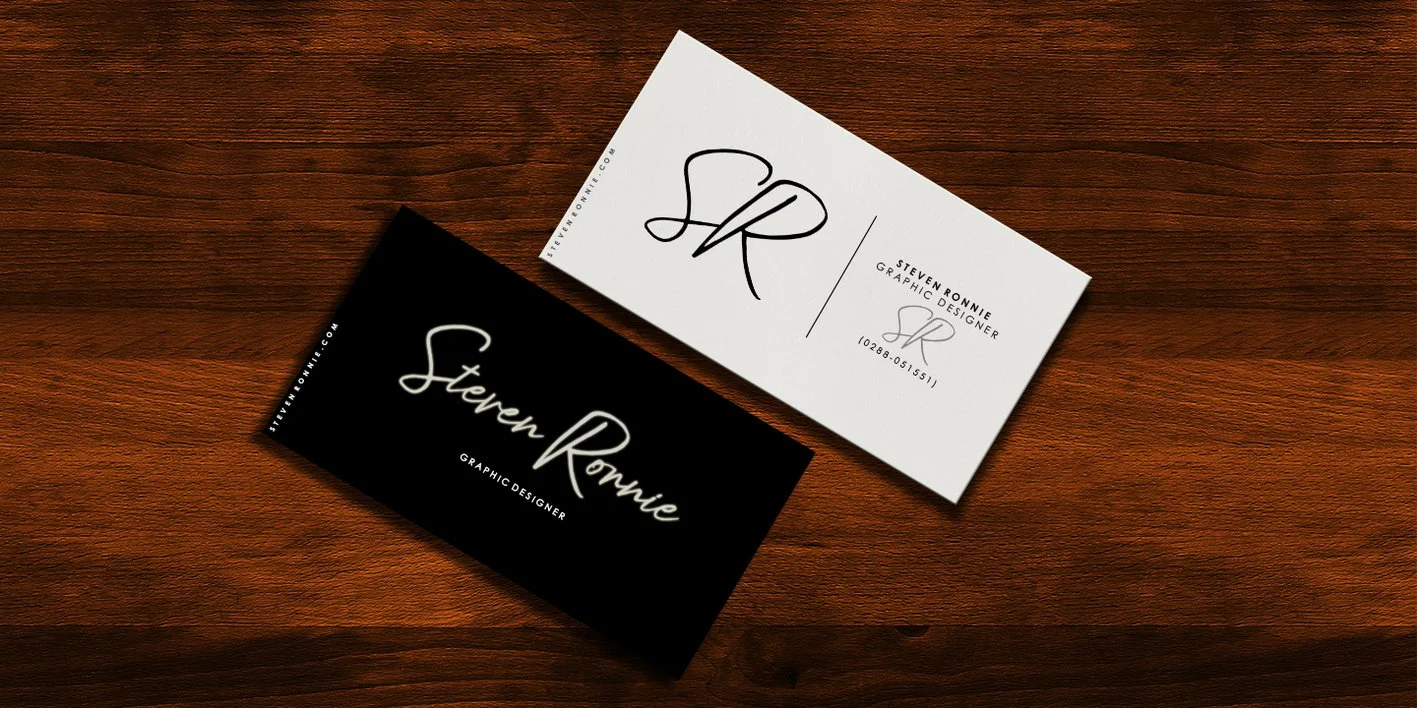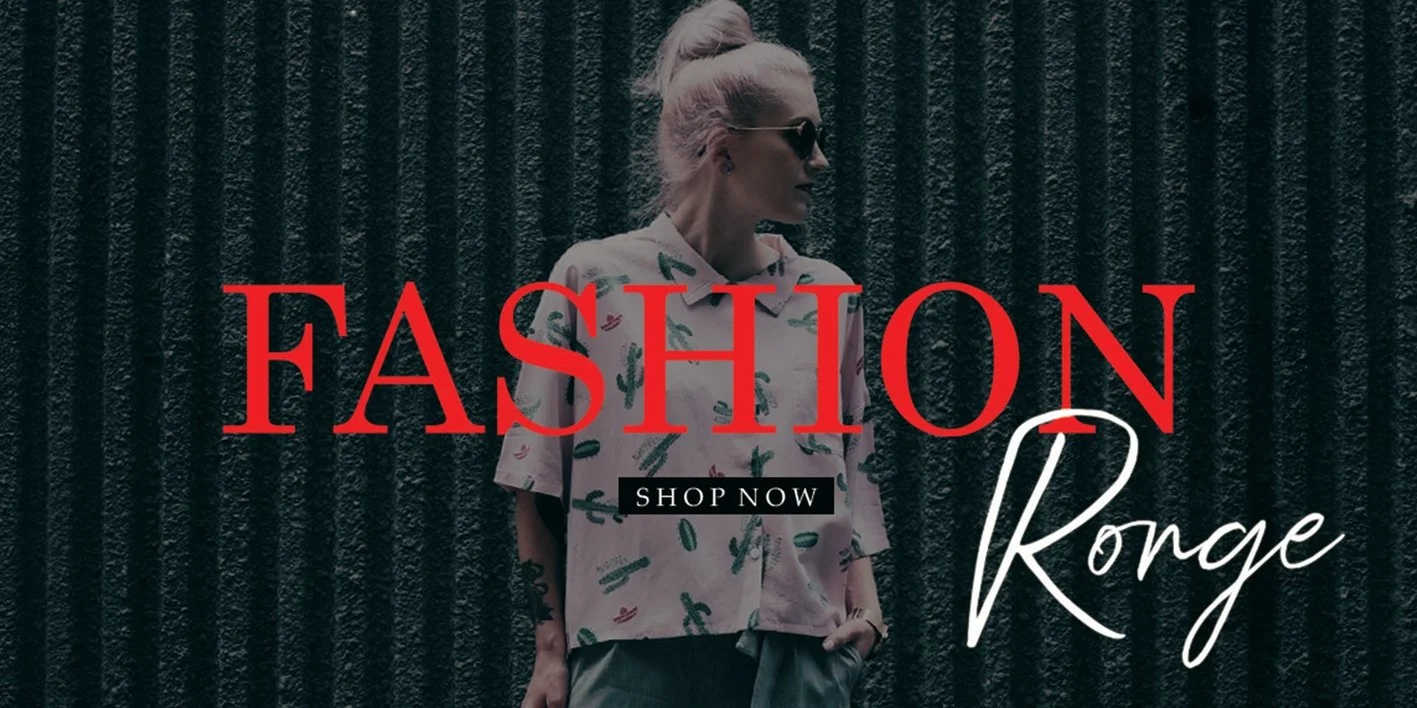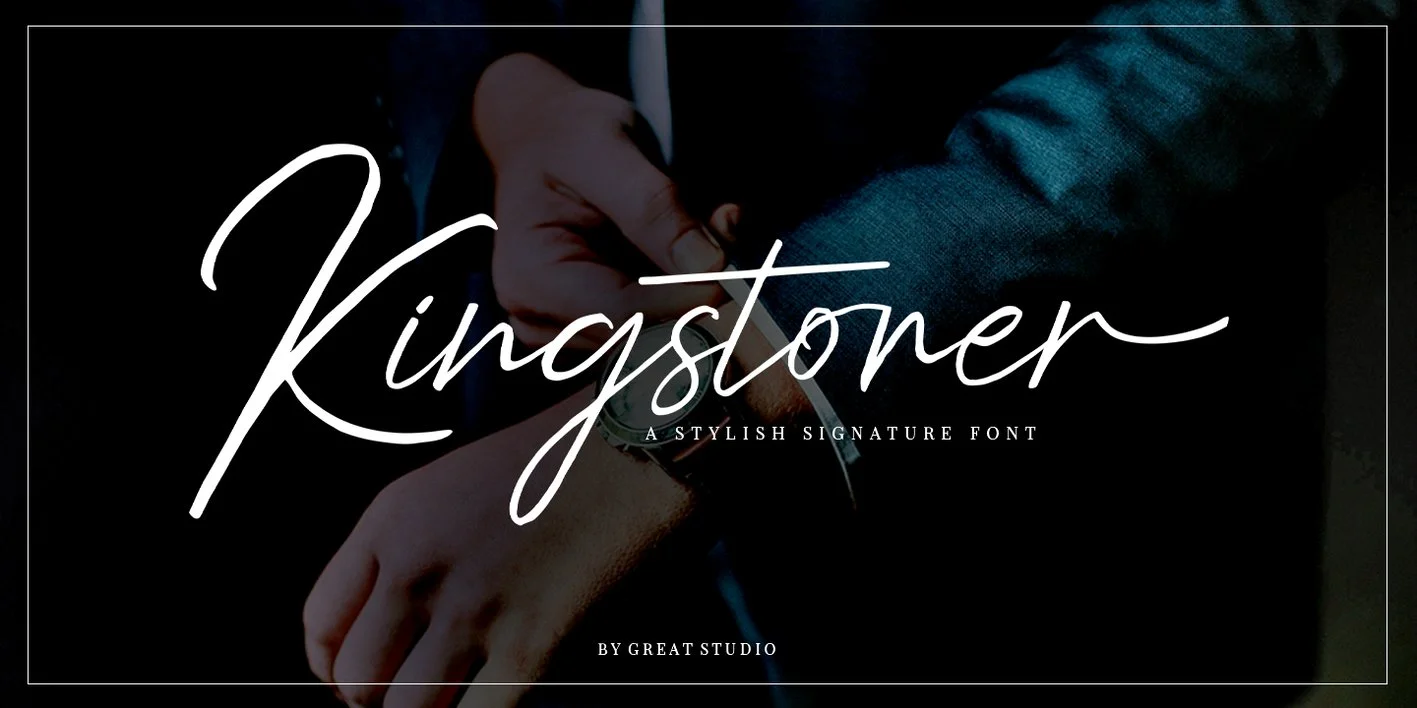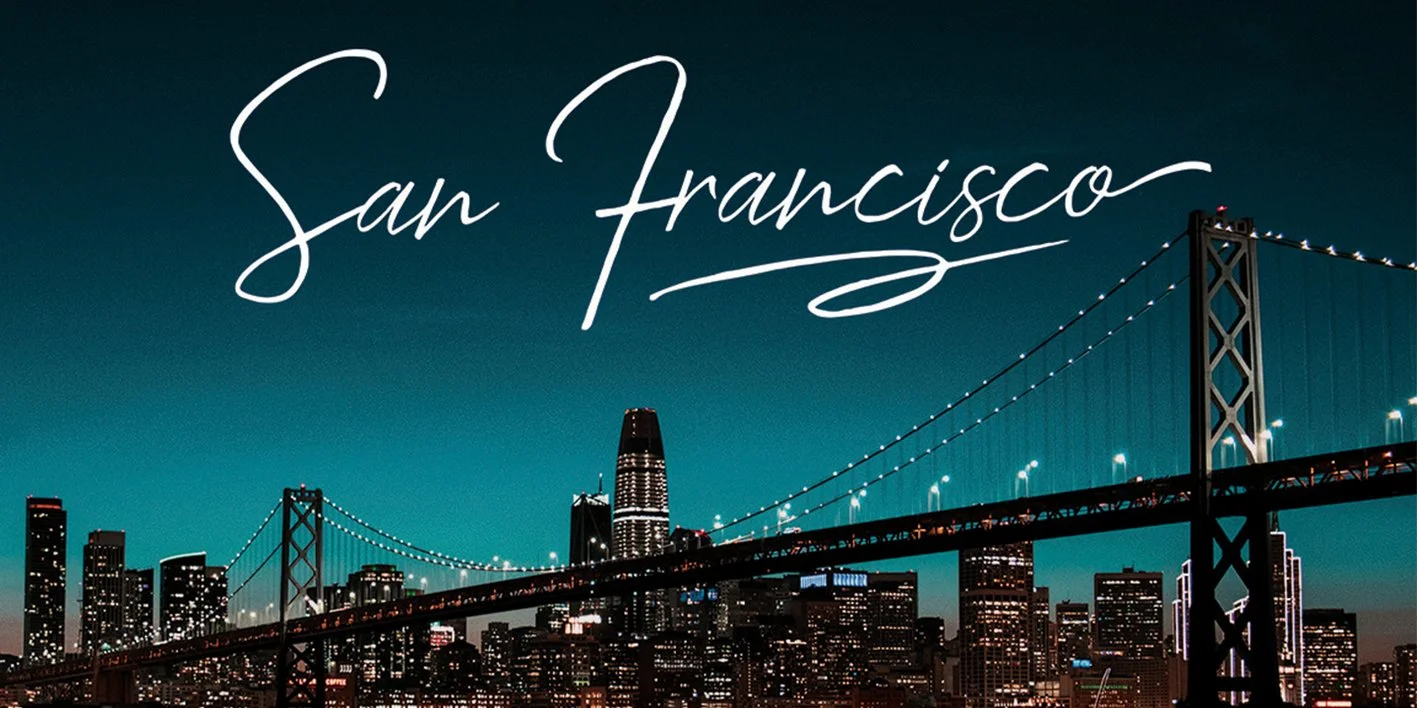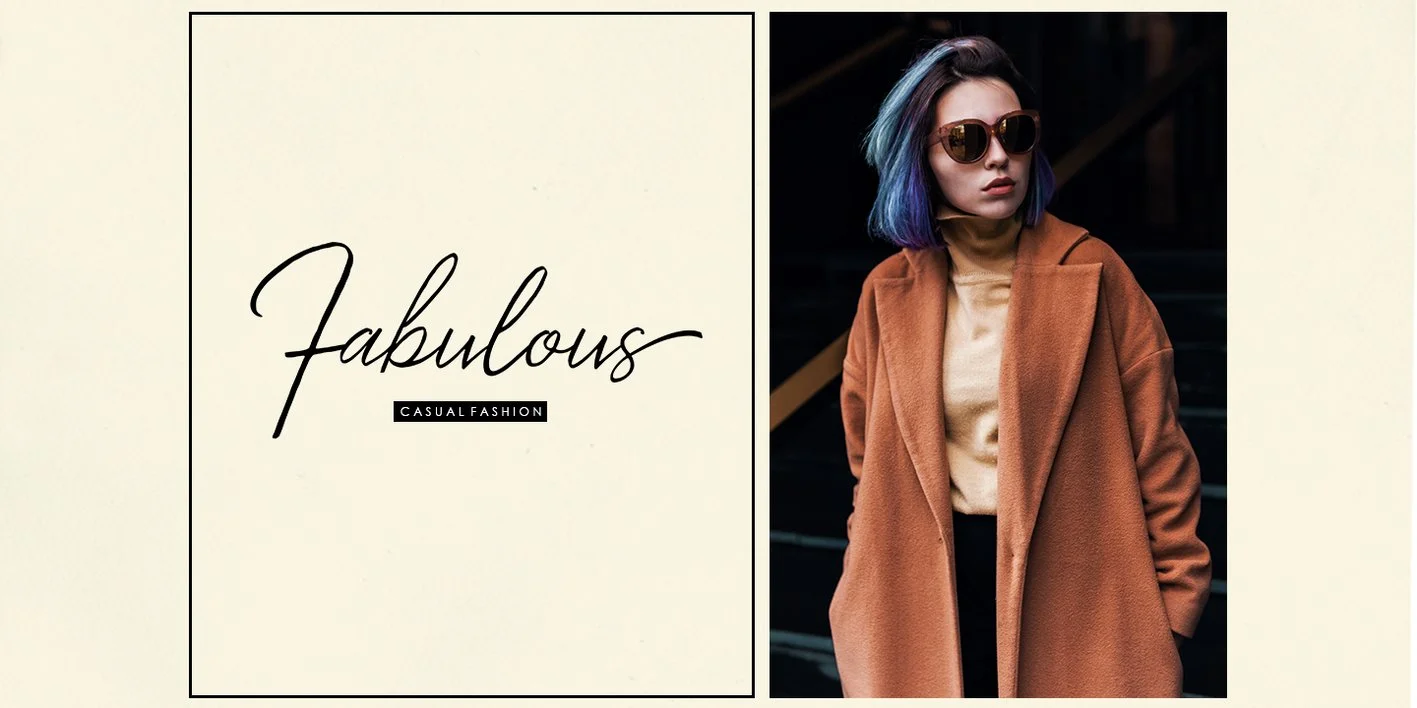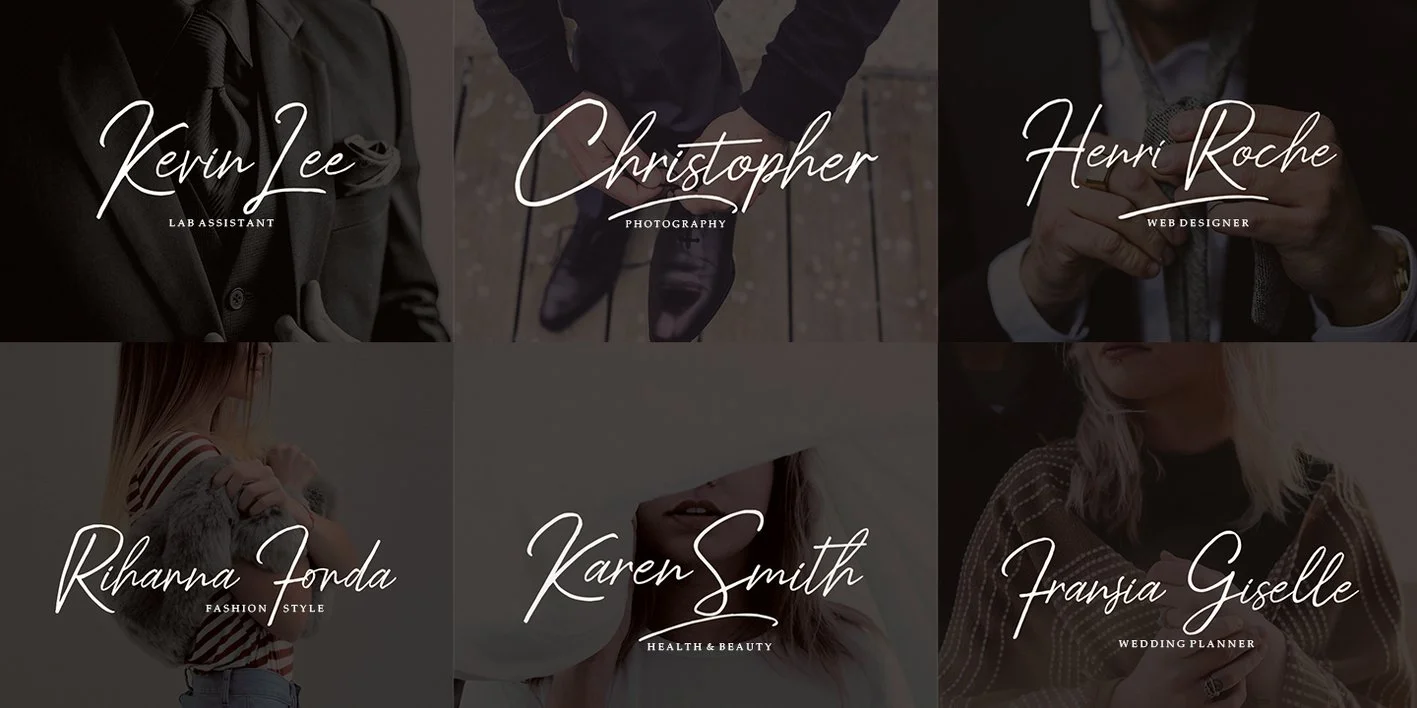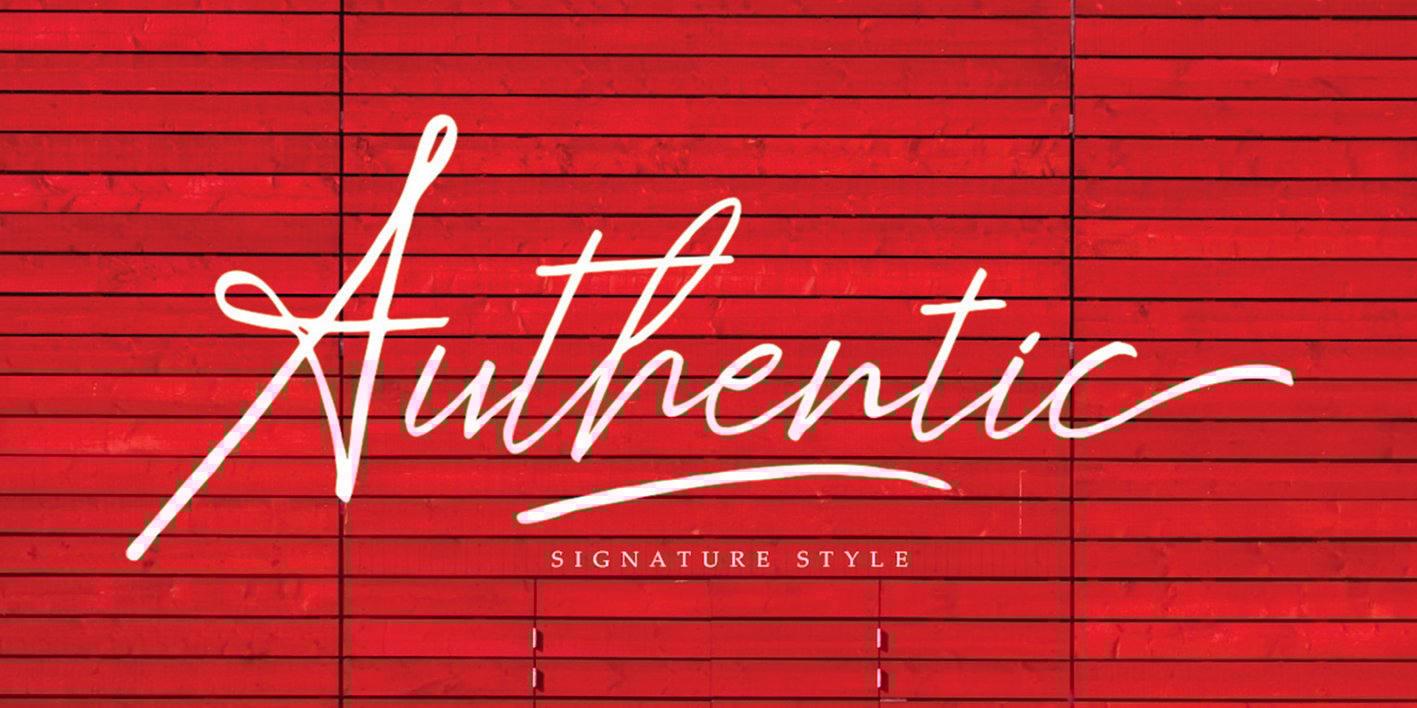
Kingstoner Font
There is a particular satisfaction in finding a typeface that delivers the kind of restraint that lets content lead without compromise. Kingstoner consistently provides it. The typeface brings an elegant, calligraphic sensibility to a broad range of creative disciplines, with refined proportions and careful stroke modulation that holds up whether the work is print-first or screen-first.
In practice, Kingstoner proves particularly effective for web design, product labels, high-end cosmetic packaging, packaging design, editorial layouts. Designers reaching for it find that the type decisions feel resolved rather than laboured — a useful quality when client timelines are tight.
The range of applications extends to social media graphics, feminine branding, luxury stationery, fashion editorials. That breadth is deliberate: the proportions and spacing were stress-tested across a wide range of mock briefs before the typeface was finalised.
The consistent rhythm of Kingstoner across a full paragraph creates the kind of even grey value that makes extended reading comfortable, a detail that matters more in long-form content than its subtlety might suggest.
UX designers establishing typographic systems for digital products find Kingstoner a reliable choice for projects that demand both personality and restraint. The design avoids the self-conscious quirkiness that dates quickly, settling instead for considered distinctiveness that holds up over time.